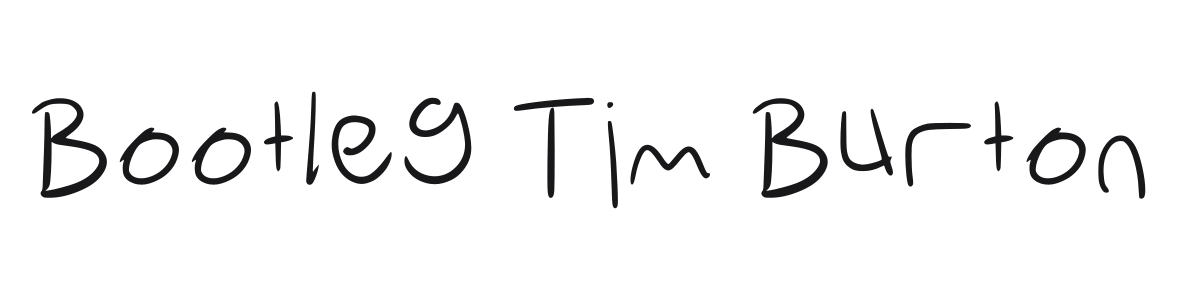
Bootleg Tim Burton
by Svenni
Bootleg Tim Burton is a handwritten font digitized directly from the author's own handwriting, shaped to capture the spindly, off-kilter spirit of Tim Burton's visual world. The uneven baseline, rounded strokes, and loose letterforms carry a nervous, sketchbook energy that sits somewhere between creepy and charming. It works best at large sizes where the handmade irregularities read as character rather than noise.